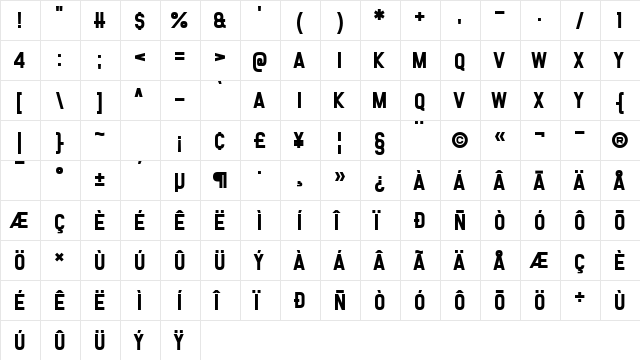
Gourmet Hearth Regular
Design Context for Gourmet Hearth Typeface
Gourmet Hearth takes a measured approach to typography — its balanced proportions and neutral character make it a reliable workhorse for both digital and print work.